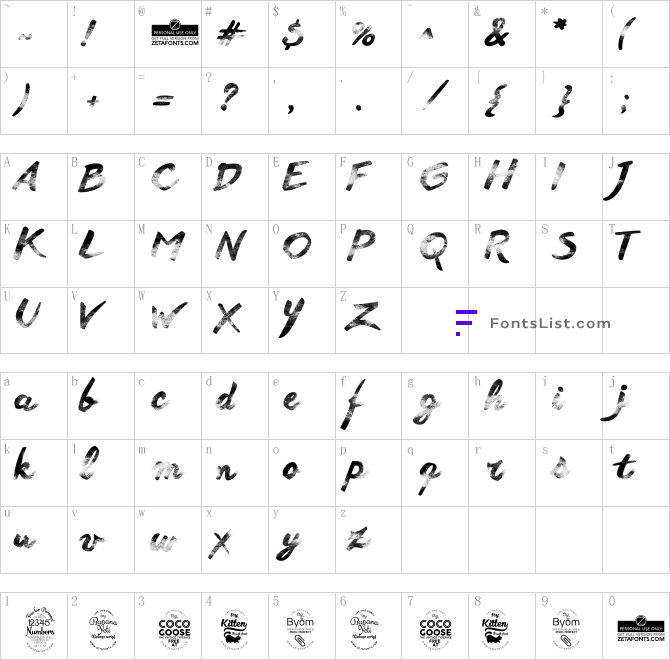
- Font Name:Another Wet Shabby
Another-Wet-Shabby.ttf is a very beautiful artistic font, Another-Wet-Shabby.ttf is widely used in the design and printing of various books and pictures,Another-Wet-Shabby.ttf has a strong visual impact,Another-Wet-Shabby.ttf is a commonly used font in newspapers, magazines and books, and is used in posters, e-commerce Poster design, store design, logo design, font design and other fields.Another-Wet-Shabby.